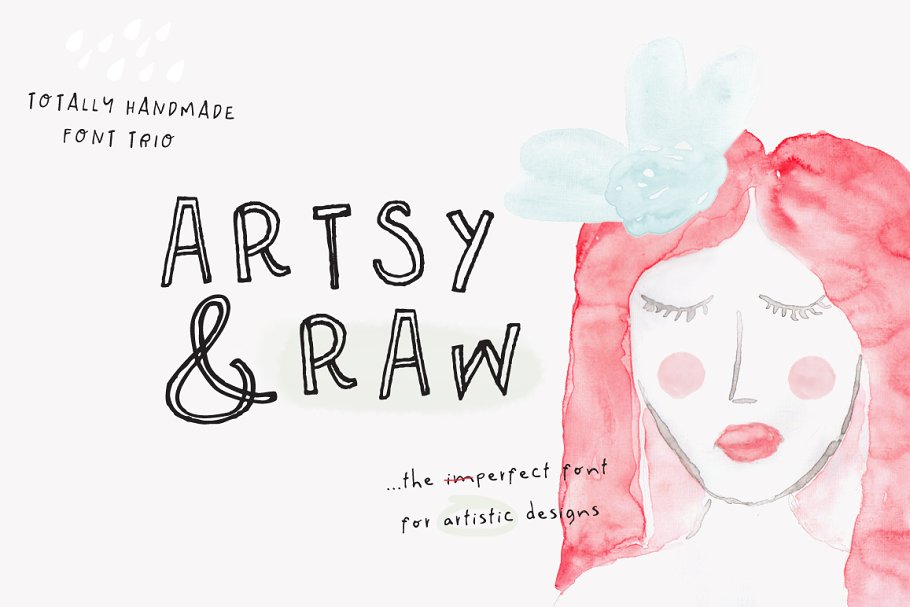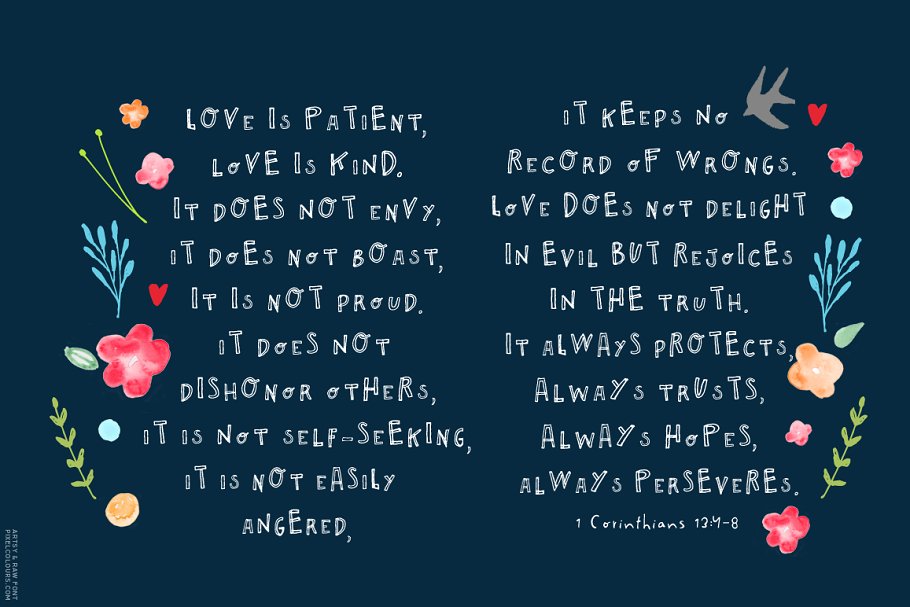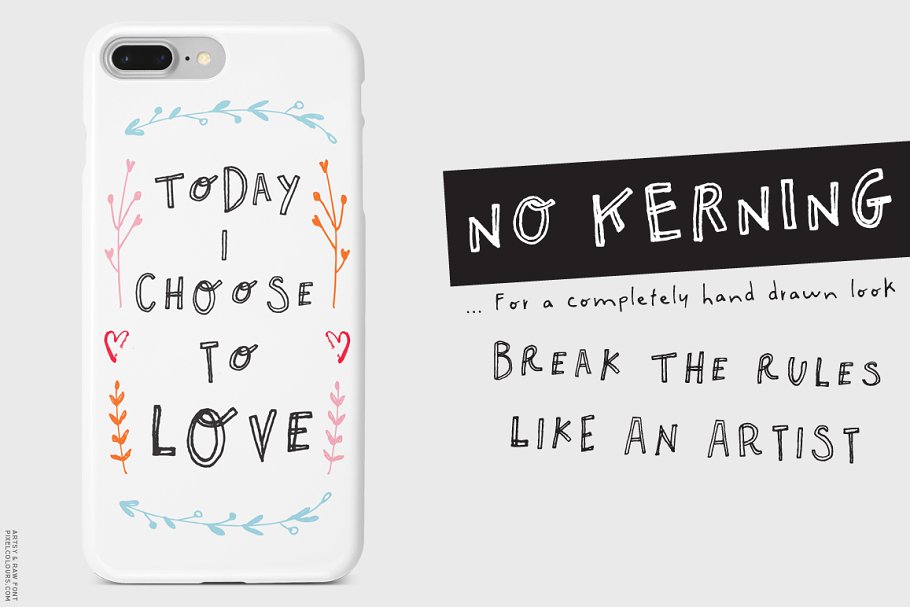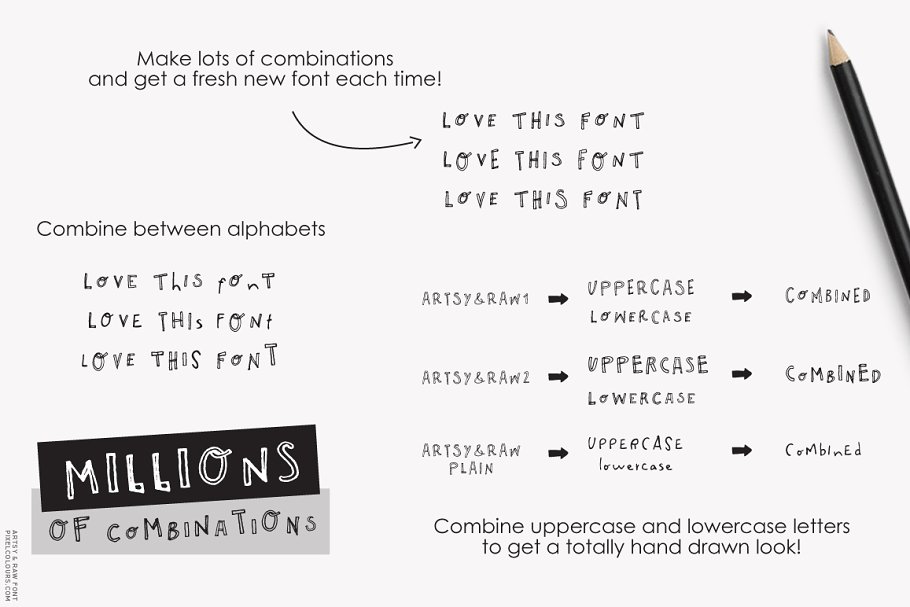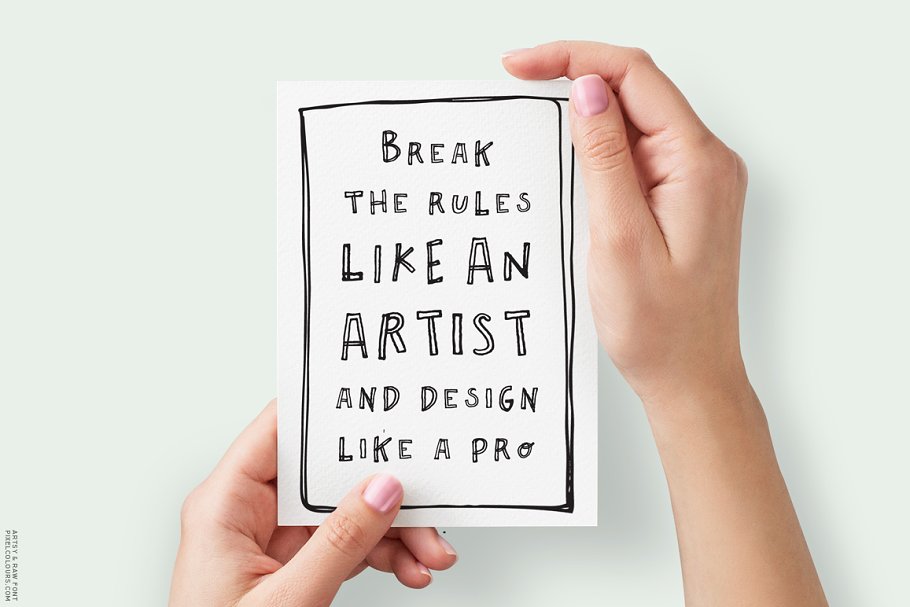
About the Outline Font Artsy and Raw
Artsy and Raw is a sweet display font family designed to look absolutely hand drawn, It’s so imperfect that is perfect for artistic projects, I’m sure you will love it!Perfect for quotes, logos, branding, greeting cards, etc, BONUSStart creating with 150 hand drawn vector ornaments, watercolor flowers and hearts, INCLUDESArtsy and Raw 1Artsy and Raw 2Artsy and Raw PlainUppercase and lowercase characters, numbers and punctuationLanguage supportWatercolor flowers PNGWatercolor hearts PNGVector ornaments AI and EPS✅ Want more handwritten fonts? https://creativemarket